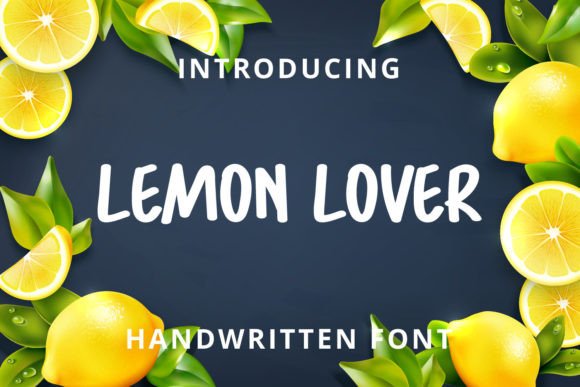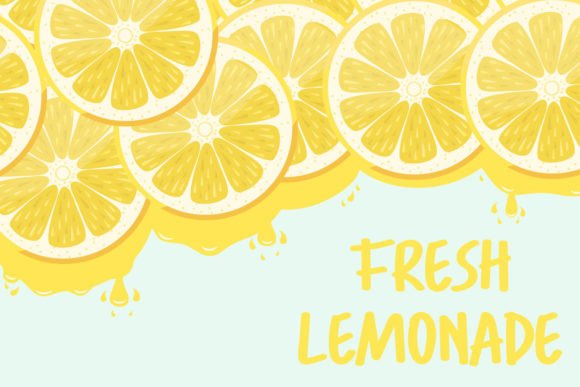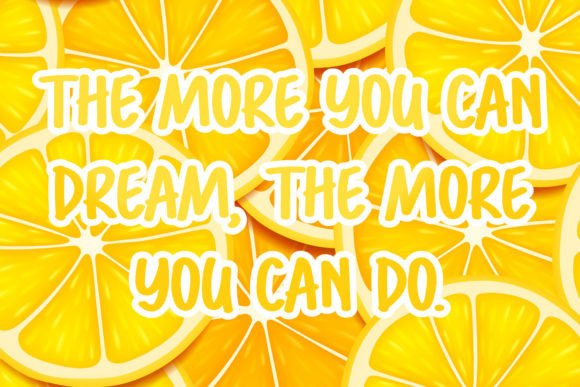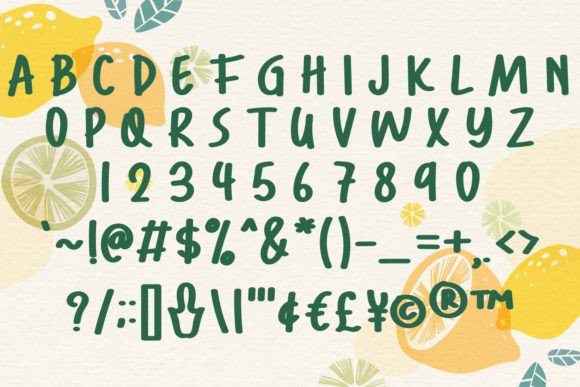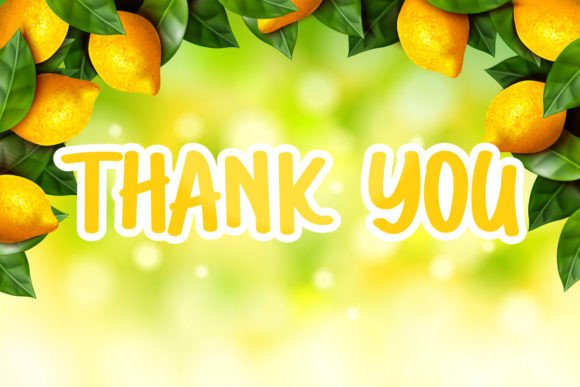
Lemon Lover Font
About Lemon Lover Font
Introducing “Lemon Lover,” a fun and friendly handwritten display font designed to bring a whimsical and quirky touch to your creative projects. With its playful and lighthearted style, Lemon Lover is crafted to brighten up your designs and add a delightful element to your creations. Add this font confidently to your projects, and you will love the cheerful and vibrant results it brings.
The playful and friendly nature of Lemon Lover makes it an ideal choice for designs that require a touch of whimsy and charm. Whether you’re working on invitations, greeting cards, posters, or any other project, this font adds a lighthearted and joyful feel to your text.
Lemon Lover’s handwritten display style contributes to its unique and distinctive appearance, making it stand out and capture attention. The font’s whimsical charm makes it suitable for a variety of creative endeavors, allowing you to infuse a sense of fun into your designs.
For projects that need a bit of quirkiness and character, Lemon Lover is the perfect choice. Its friendly and approachable vibe makes it well-suited for a range of applications, from digital designs to printed materials.
The versatility of Lemon Lover extends to various design contexts, making it suitable for children’s books, branding, web design, greeting cards, and more. Its fun and vibrant personality make it a valuable asset for creating visually engaging and delightful content.
In summary, Lemon Lover is more than just a font; it’s a creative tool designed to bring a fun and friendly handwritten display style to your projects. Whether you’re working on digital designs, print materials, or any creative endeavor that calls for a touch of whimsy, let Lemon Lover be the font that adds a cheerful and vibrant dimension to your creations.